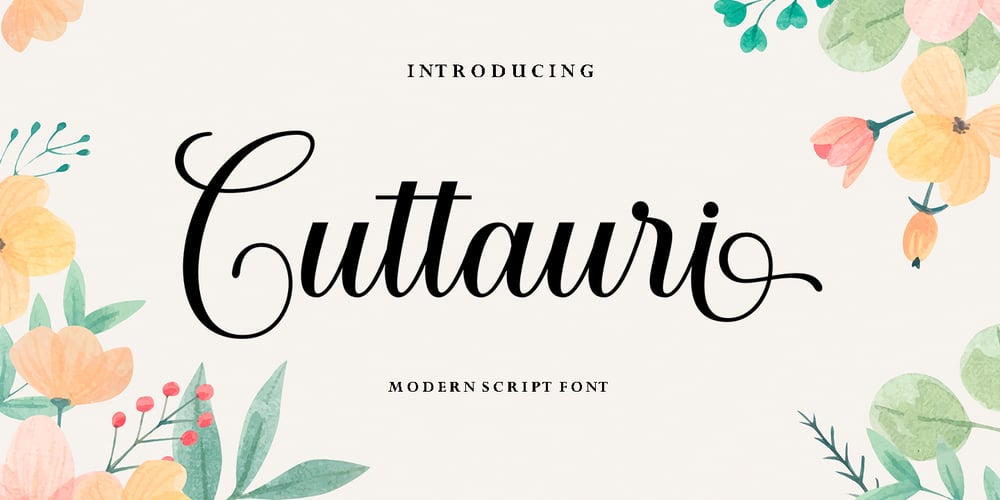
Cuttauri Script
Cuttauri Script font
Cuttauri Script Font Family was designed by Nurul Kamal and published by Nk Studio. Cuttauri Script contains 1 styles and family package options. Cuttauri is a lovely modern script, with an authentic feel. Use it to create gorgeous wedding invitations, beautiful stationary art, eye-catching social media posts, and cute greeting cards.This font is PUA encoded which means you can access all of the glyphs and swashes with ease! It also features a variety of special features including alternate glyphs and ligatures.